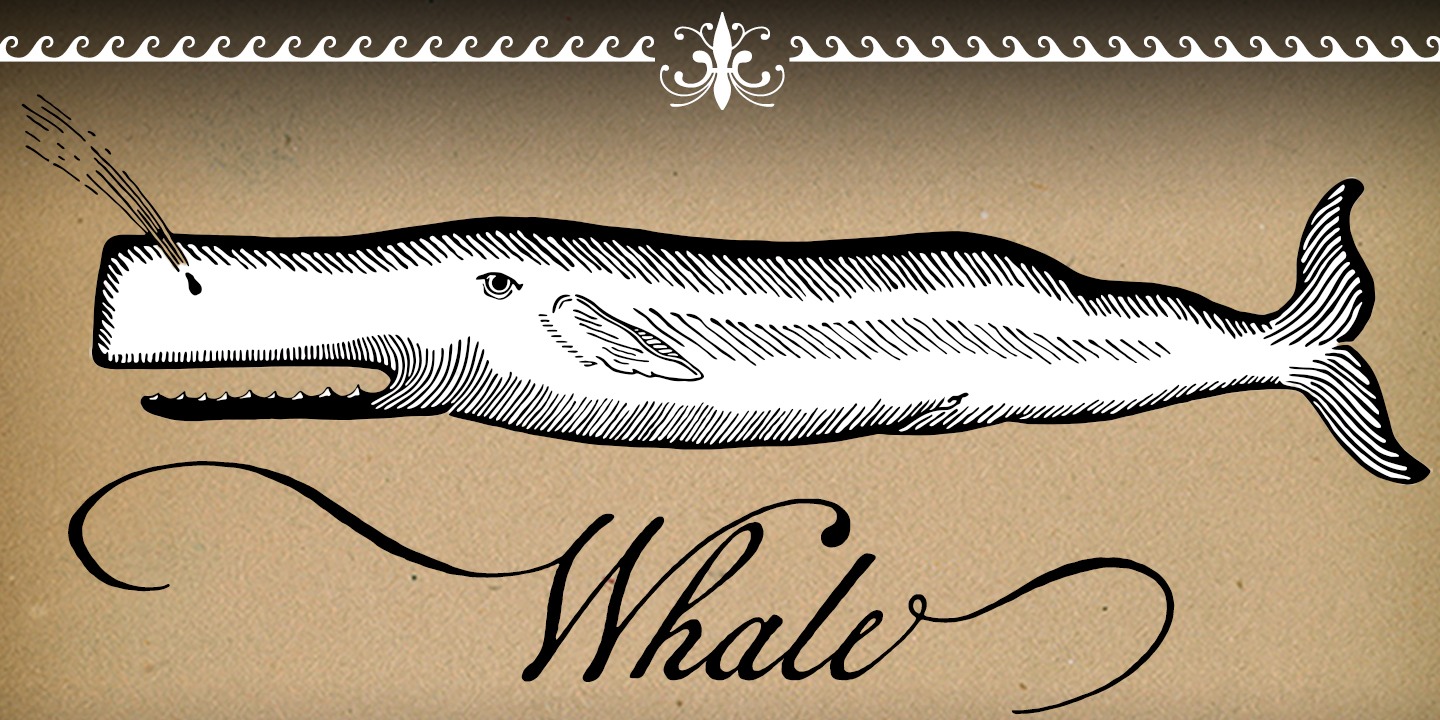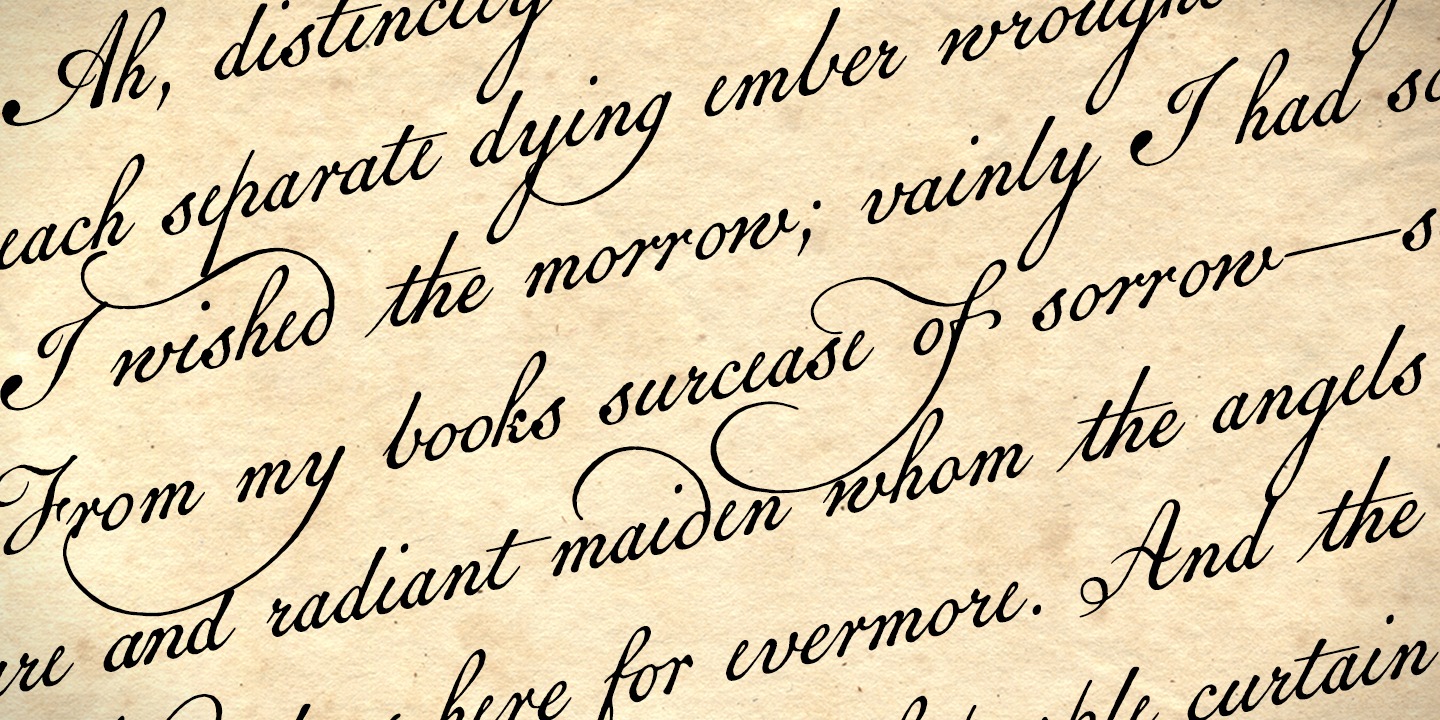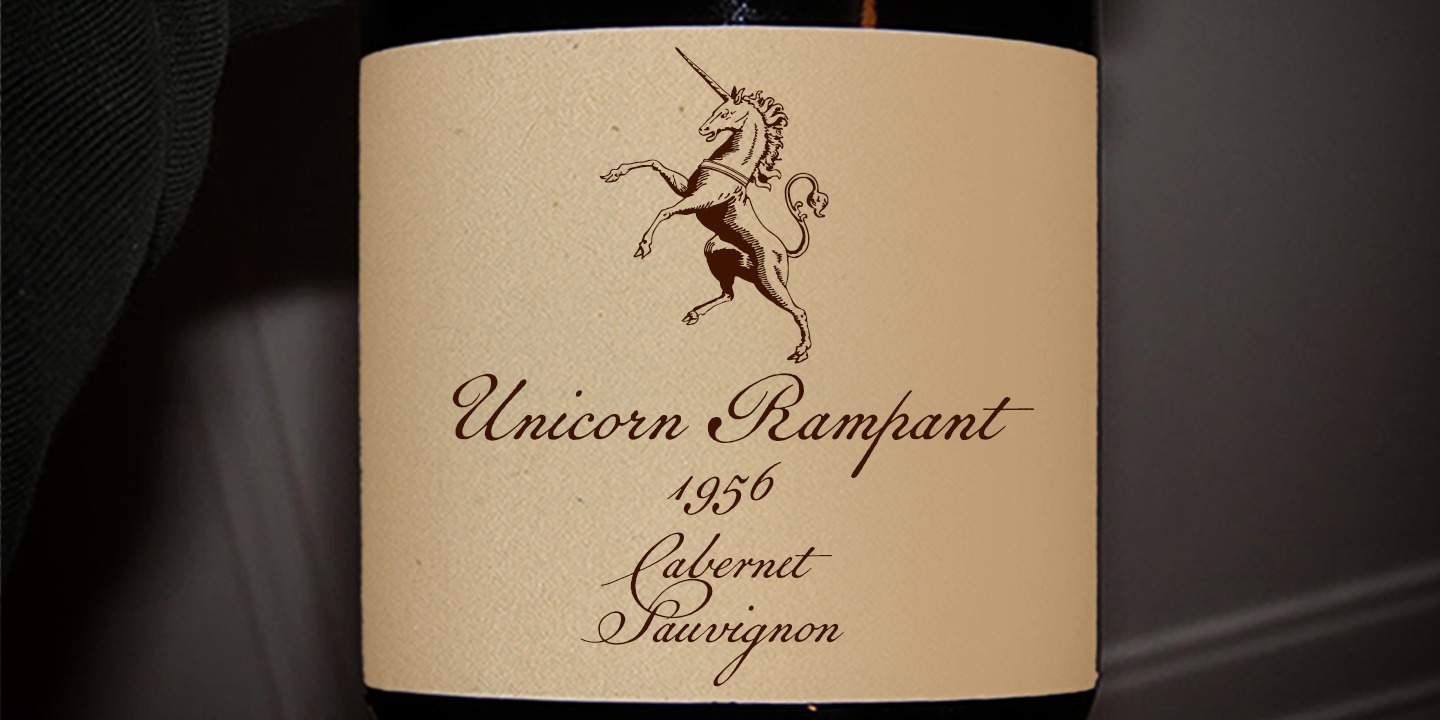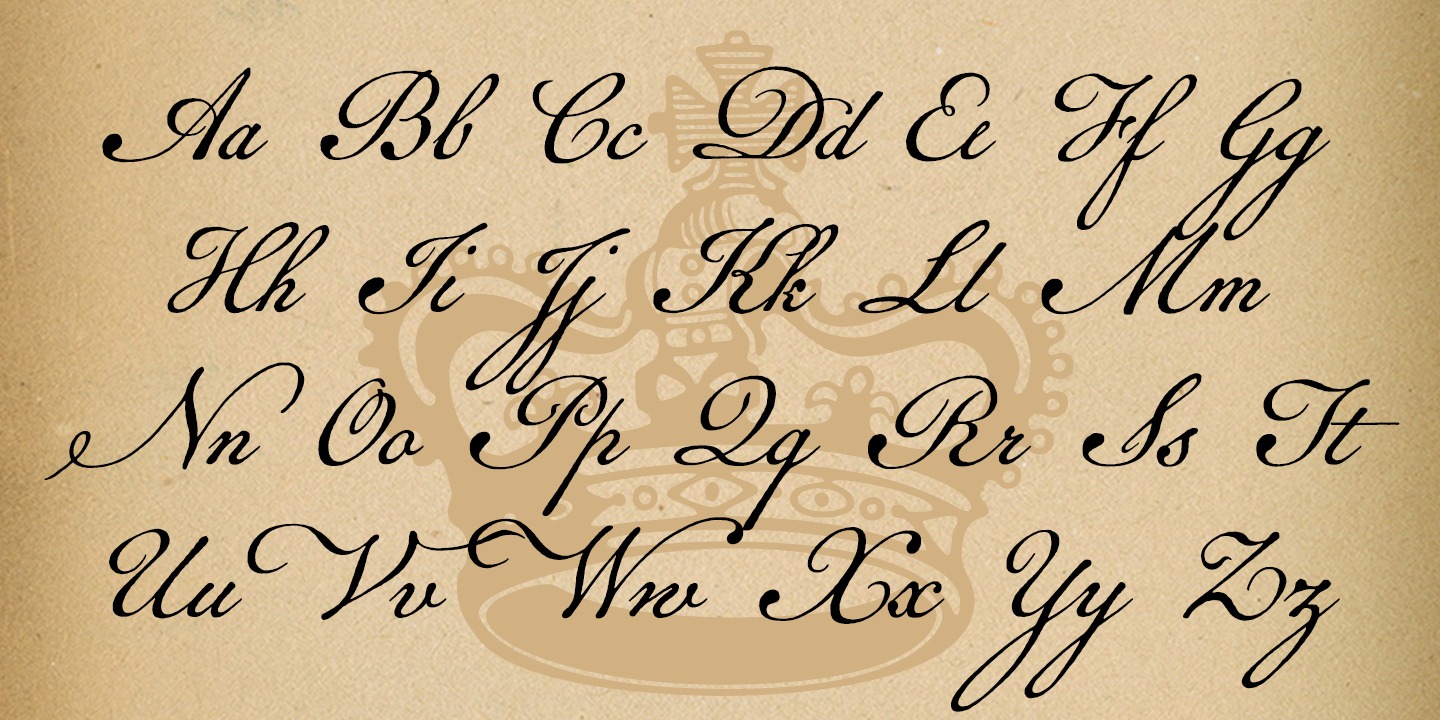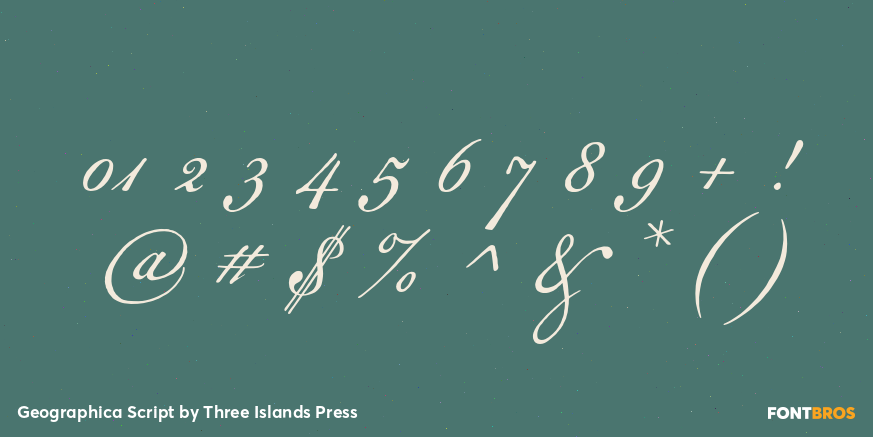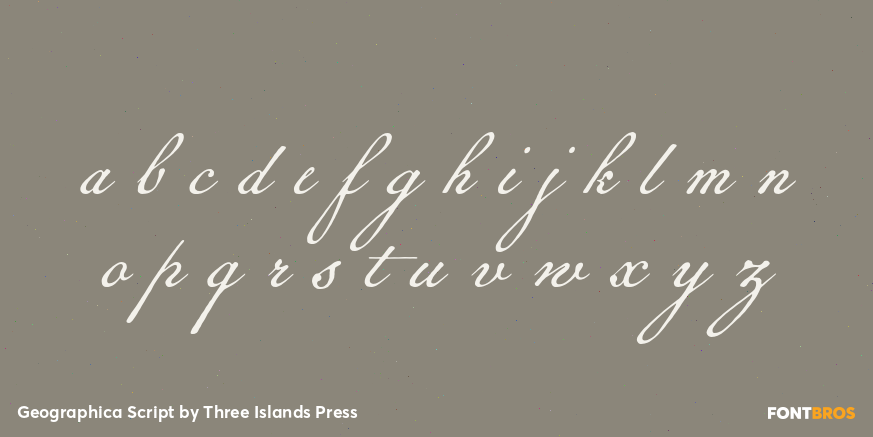
Geographica Script
Font Family by Three Islands Press
Time-tested elegance is what you'll get with Geographica Script, a handwritten typeface steeped in 18th century sophistication. Source materials include the maps of Emanuel Bowen (circa 1694?1767), Geographer to King George II, as well as English and American trade cards from the middle 1700s, including the work of artist and printmaker William Hogarth (1697?1764). A kindred font to our Geographica serif family, Geographica Script is a painstaking replication of the elegant roundhand cursive seen in engravings of the period.
The OpenType release of Geographica Script comes with scores of contextual ligatures, three full uppercase alphabets, historical forms, decorative flourishes, and full Latin support. It's also got fifty evocative ornaments inspired by map and trade card illustrations, e.g., lion rampant, unicorn rampant, crowns, anchors, sailing ships, whale, dolphin, sun, moon, and many others.